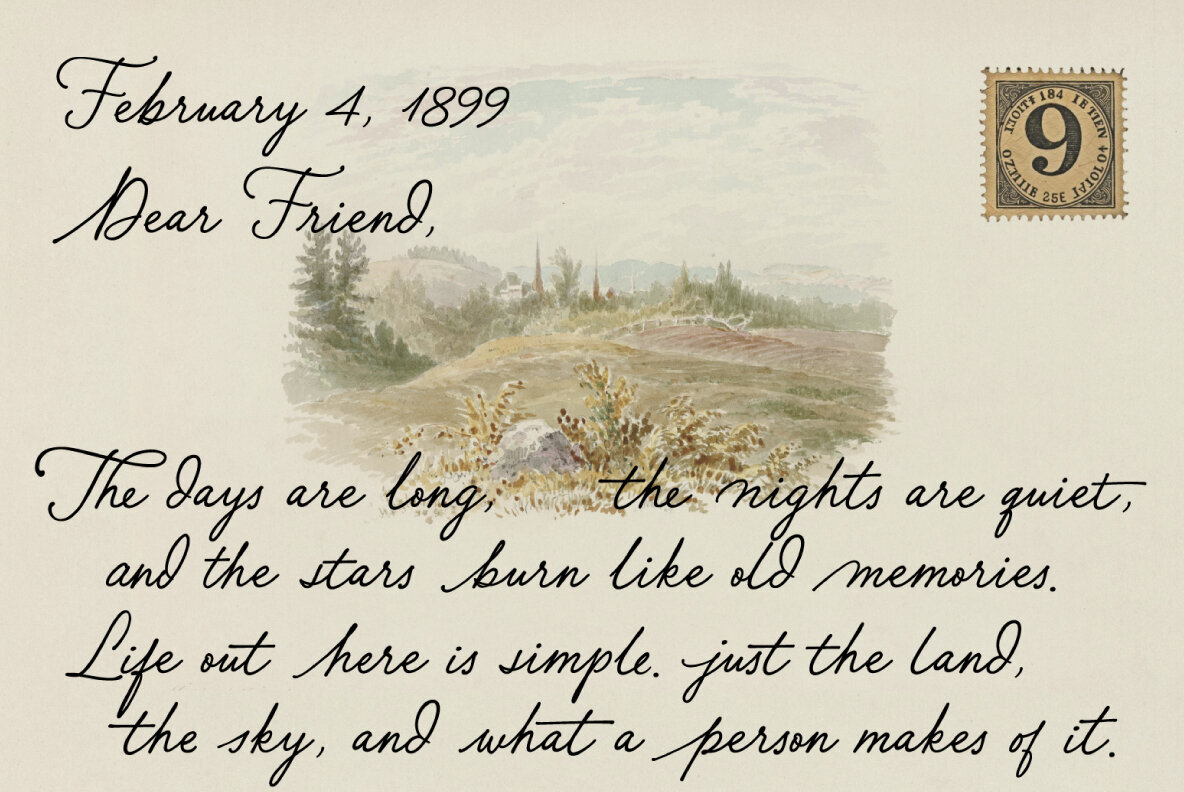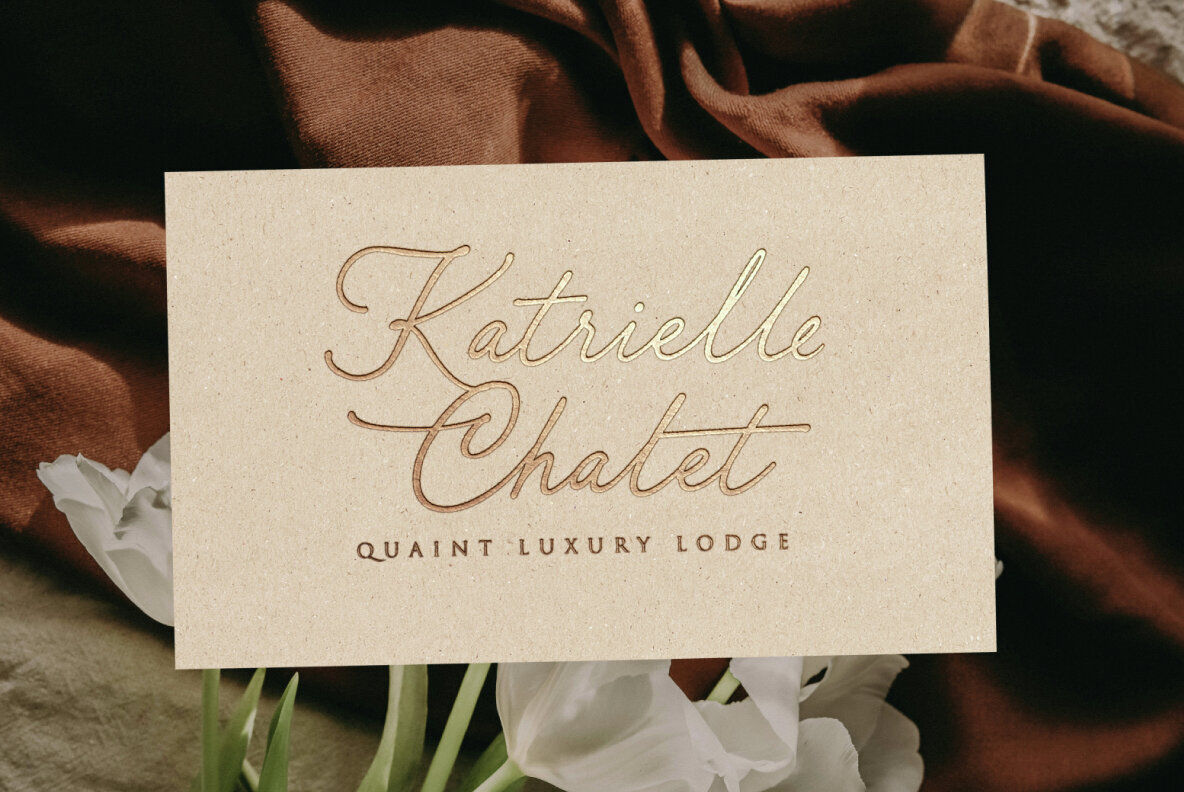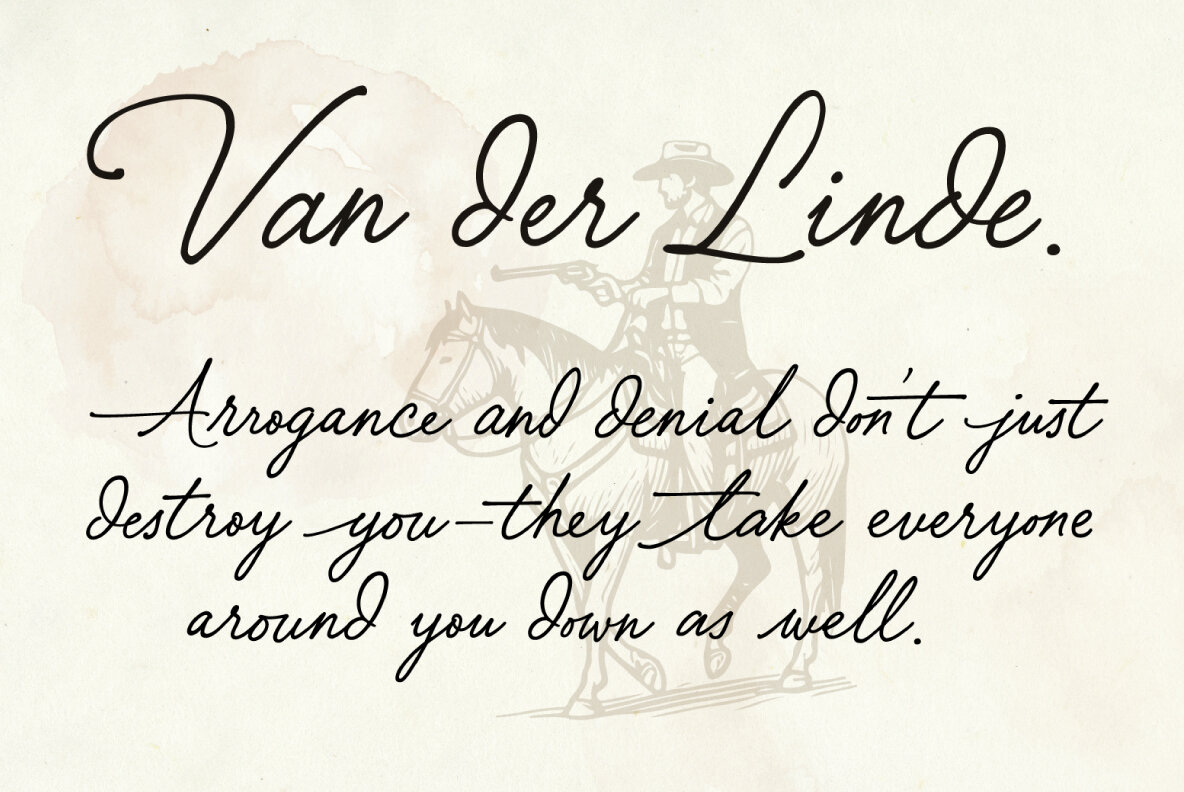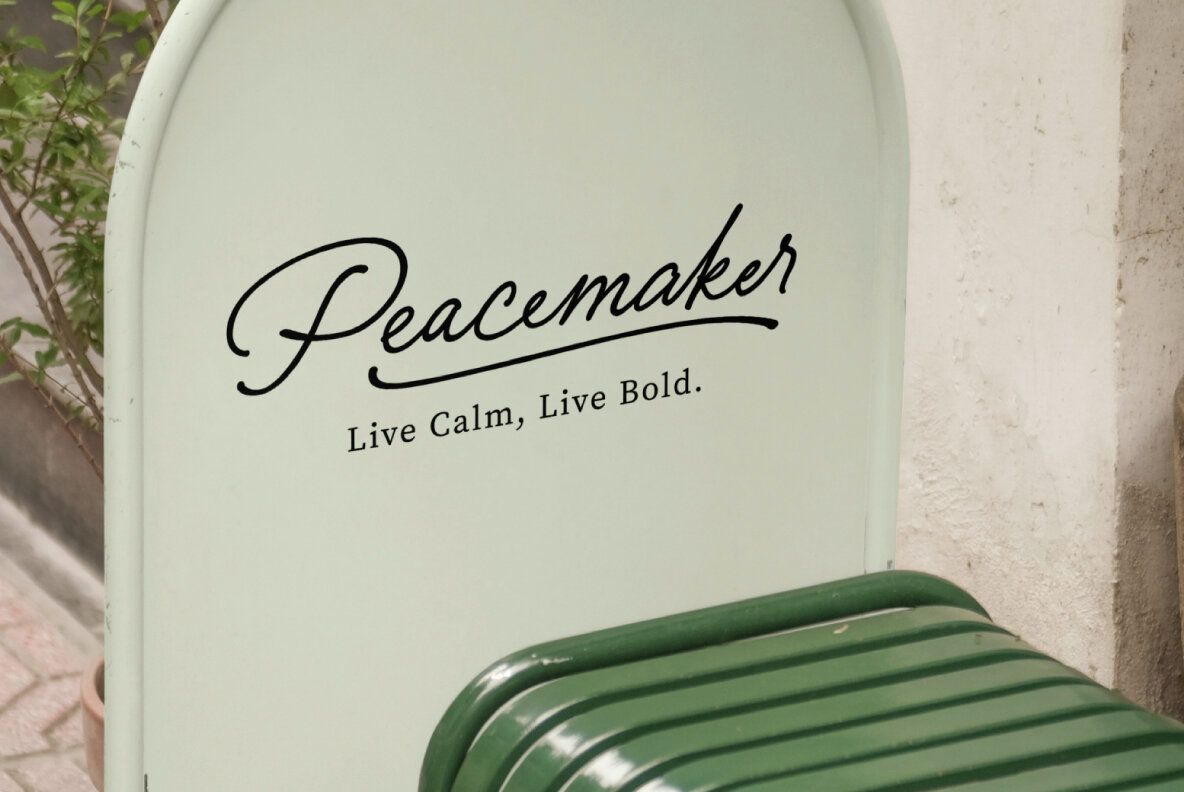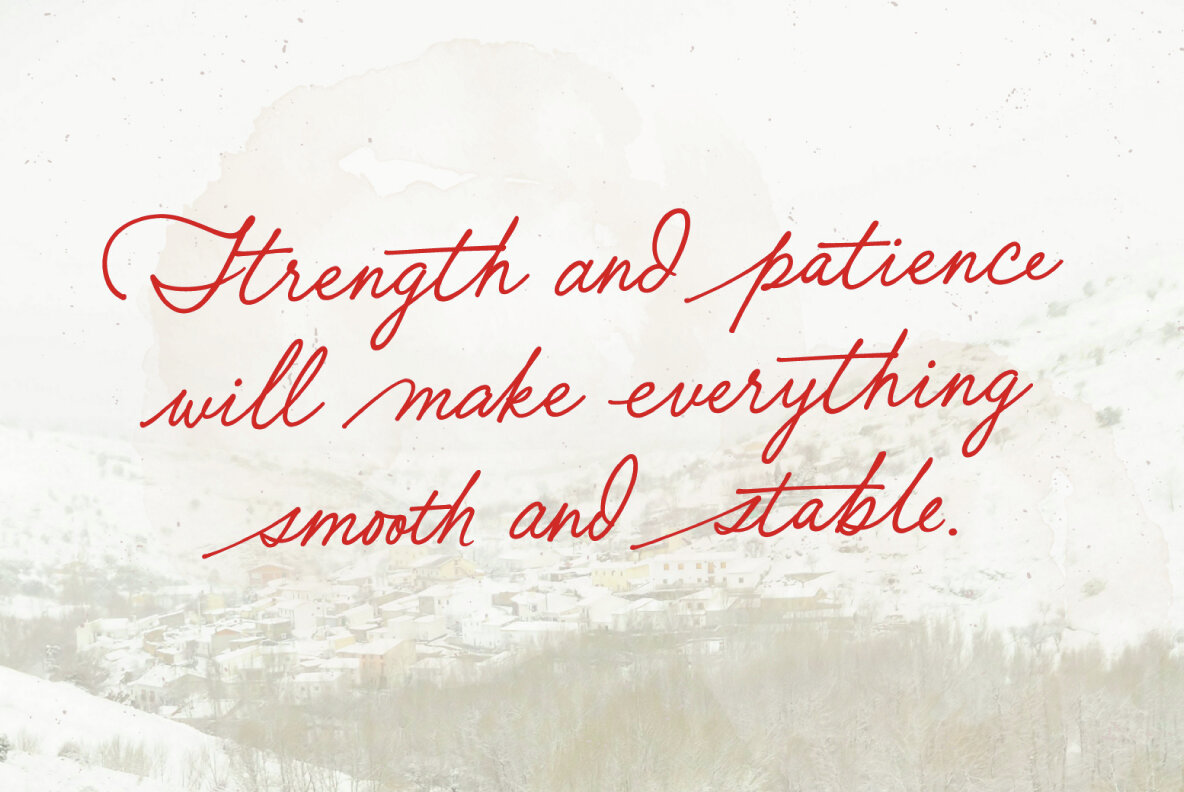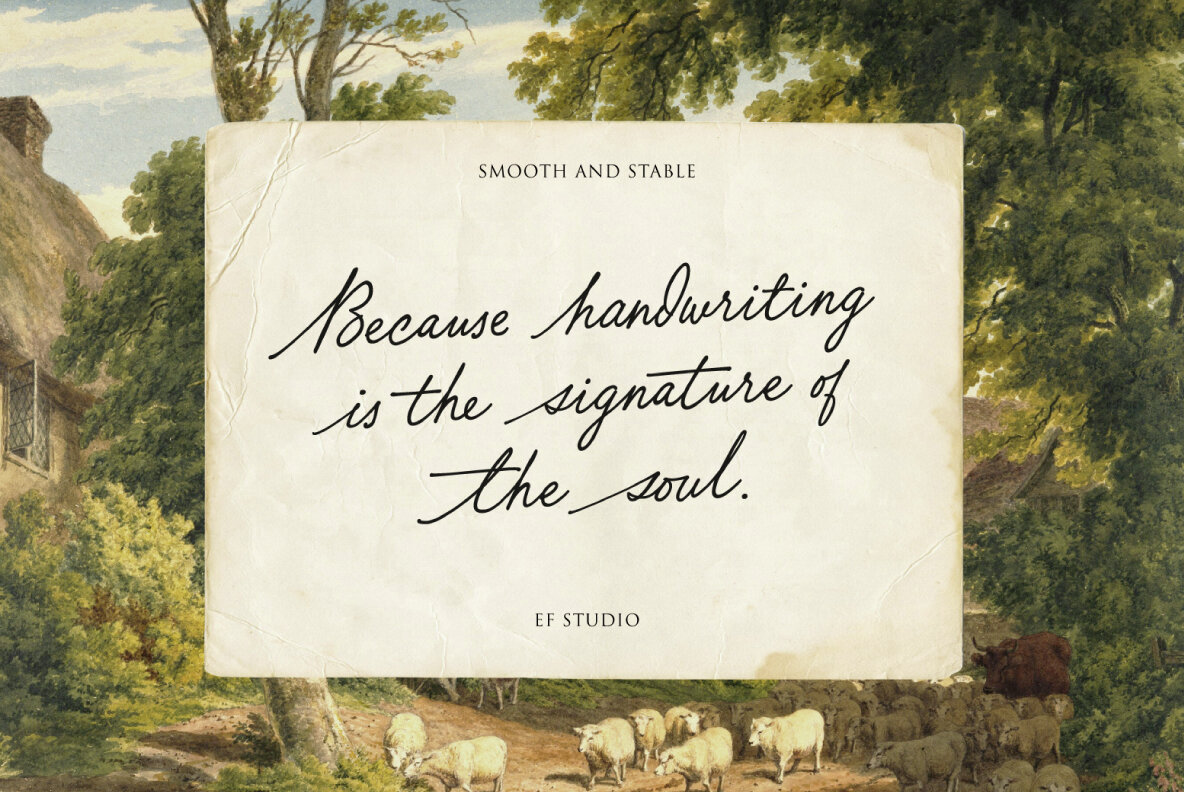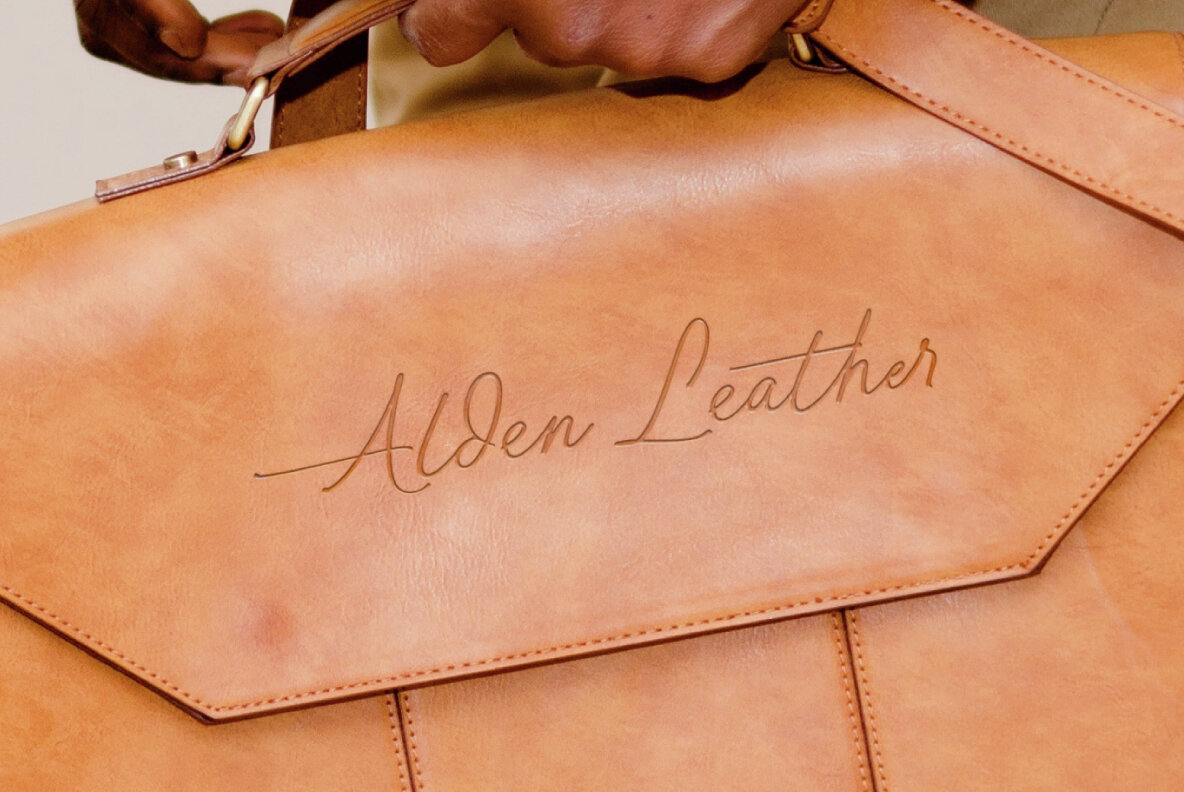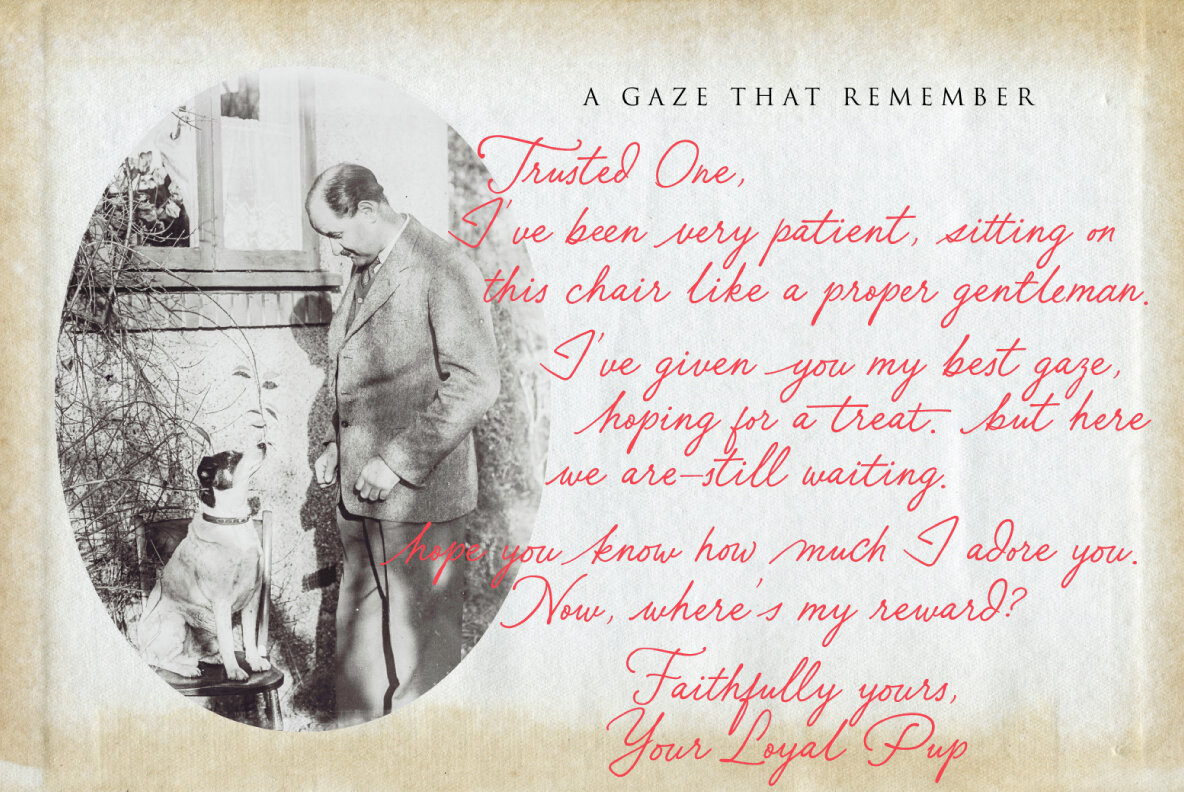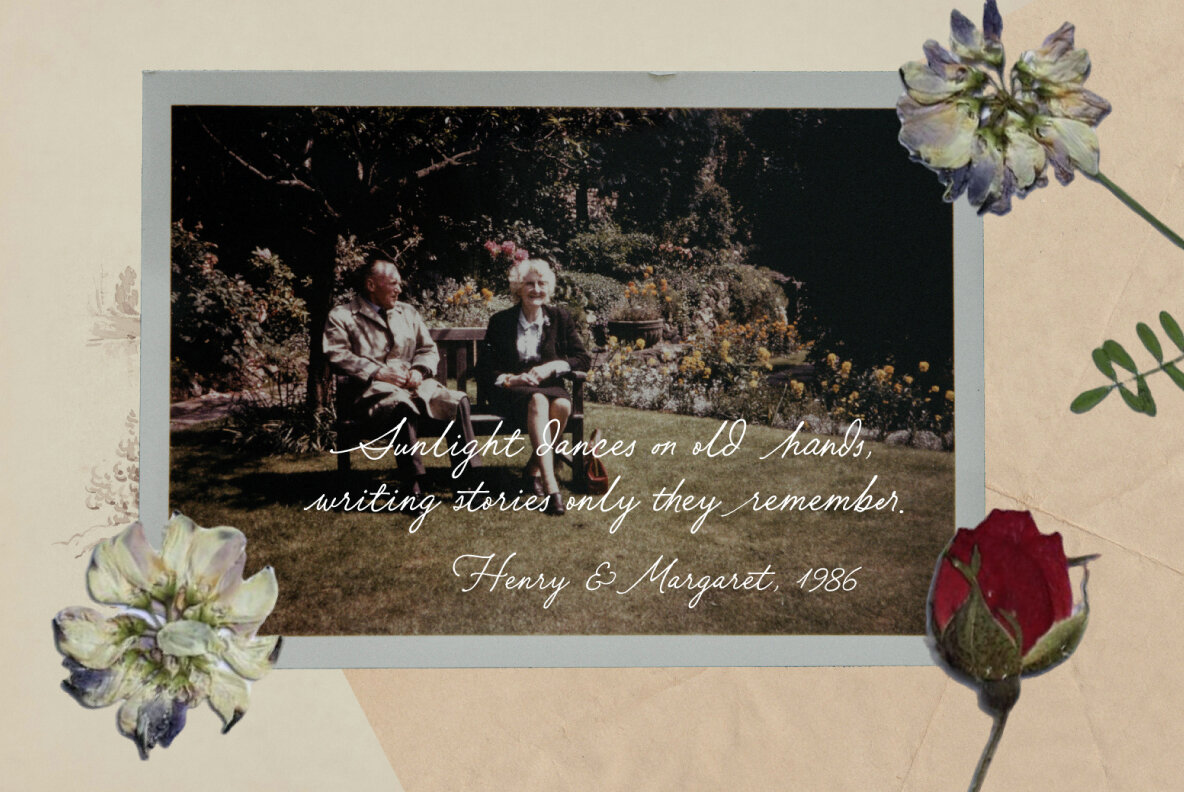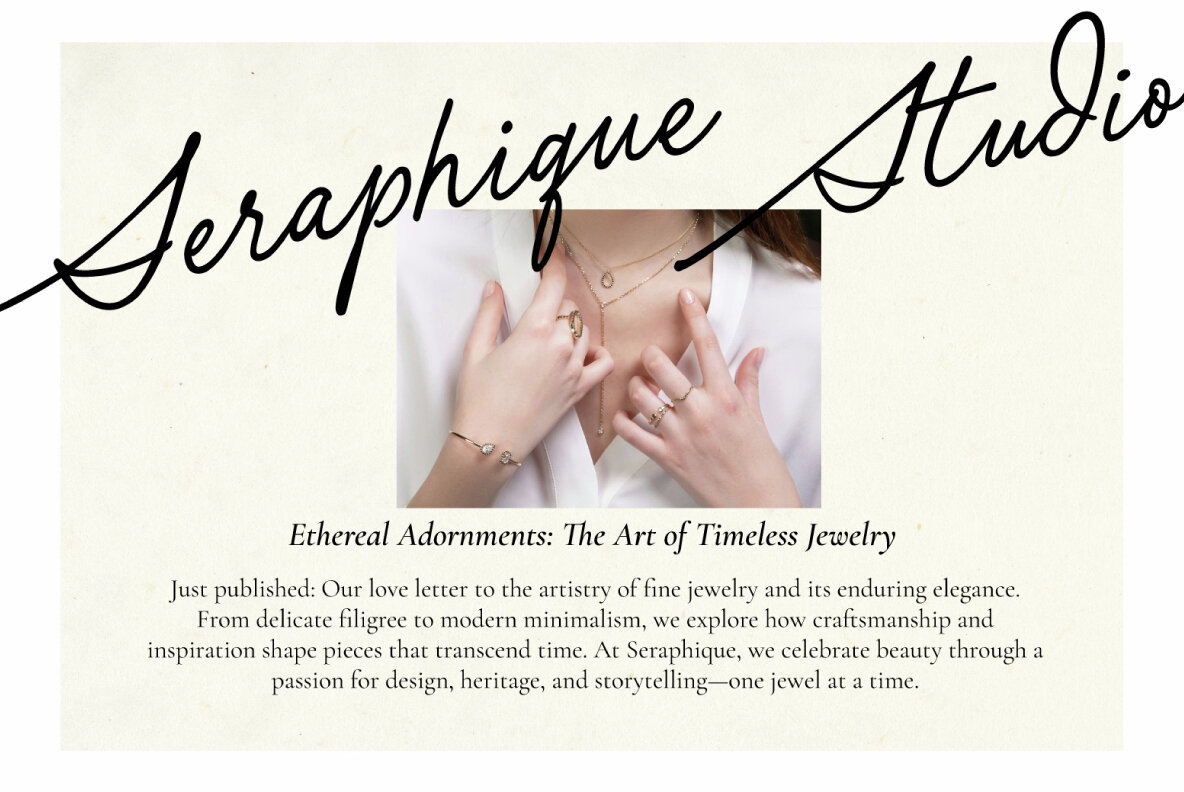
Smooth and Stable Font
smooth and stable
Smooth and Stable is classic calligraphic style inspired by traditional penmanship, this font blends old-world charm with modern legibility. Ideal for book covers, quotes, and personal letters. This font embodies the grace and refinement of handwriting, bringing a sense of warmth and authenticity to any design. With its fluid strokes and natural letter connections, it feels both personal and sophisticated, perfect for projects that require a touch of tradition with fresh readability.